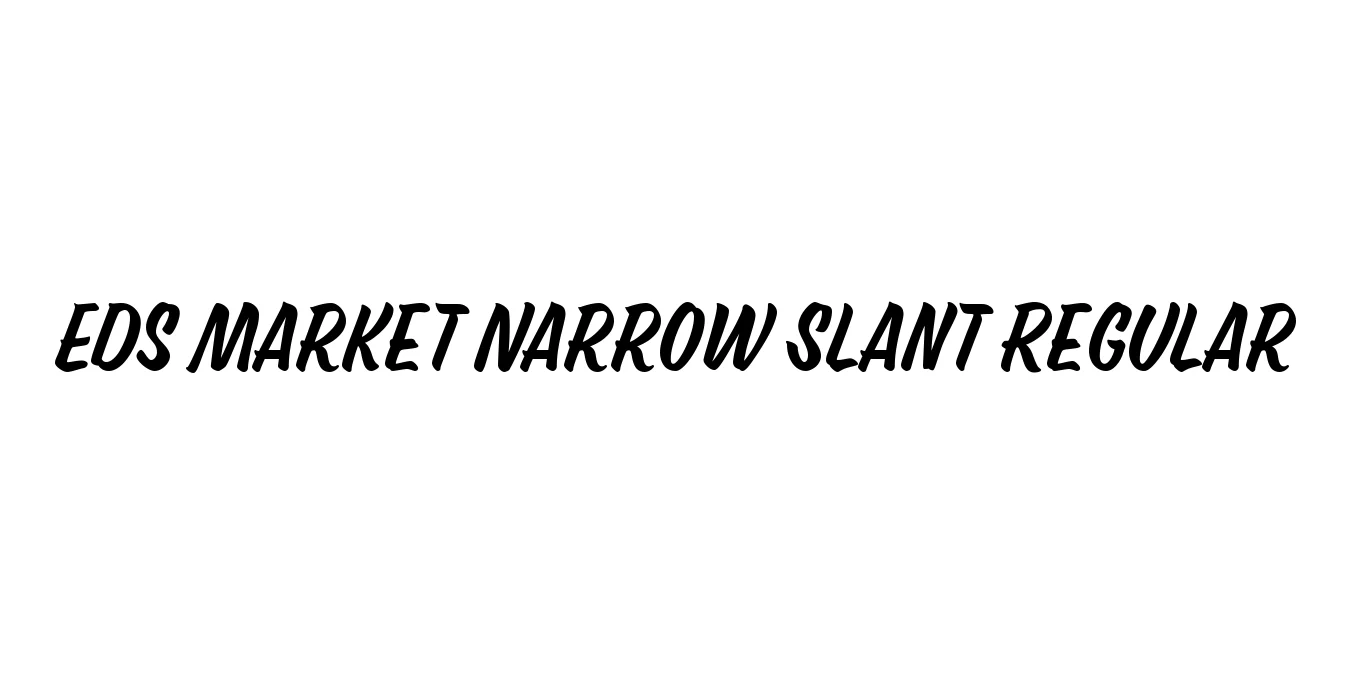
Eds Market Narrow Slant Regular
Designed by Laura Worthington
| Font Name | Eds Market Narrow Slant |
| Category | Handwritten / Display |
| Designer | Laura Worthington |
Eds Market Narrow Slant Regular is a charming hand-lettered typeface designed by the prolific Laura Worthington. Drawing inspiration from mid-century American hand-painted signage, this font captures the nostalgic essence of neighborhood grocers, butchers, and local merchants. Its casual yet disciplined stroke reflects the practiced hand of a commercial artist from a bygone era, offering a warm and inviting aesthetic that avoids the sterility of modern digital fonts.
As part of the larger Eds Market collection, the Narrow Slant variant provides a condensed profile that is ideal for fitting more text into limited spaces without sacrificing legibility. The subtle slant adds a sense of urgency and motion, making it perfect for promotional headlines and eye-catching advertisements. This typeface is highly versatile, blending seamlessly into vintage-inspired designs while remaining modern enough for contemporary branding projects that require a touch of human warmth.
Eds Market Narrow Slant Regular Best Uses
Ideal for logos and identities that need a friendly, neighborhood feel.
Great for promotional posters, flyers, and store signage.
Works well for food and beverage labels wanting an artisan look.
Perfect for headlines and pull quotes in lifestyle magazines.